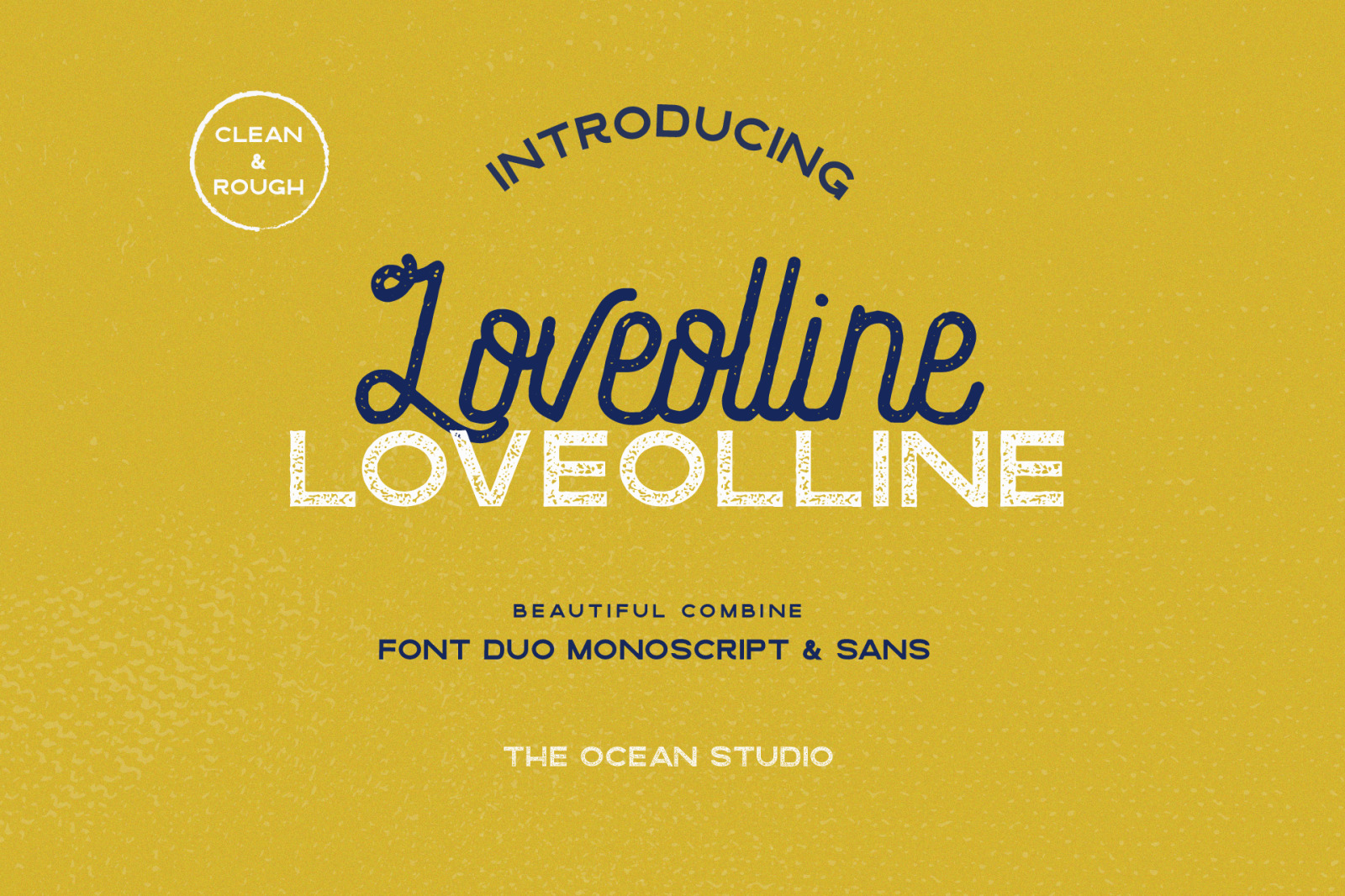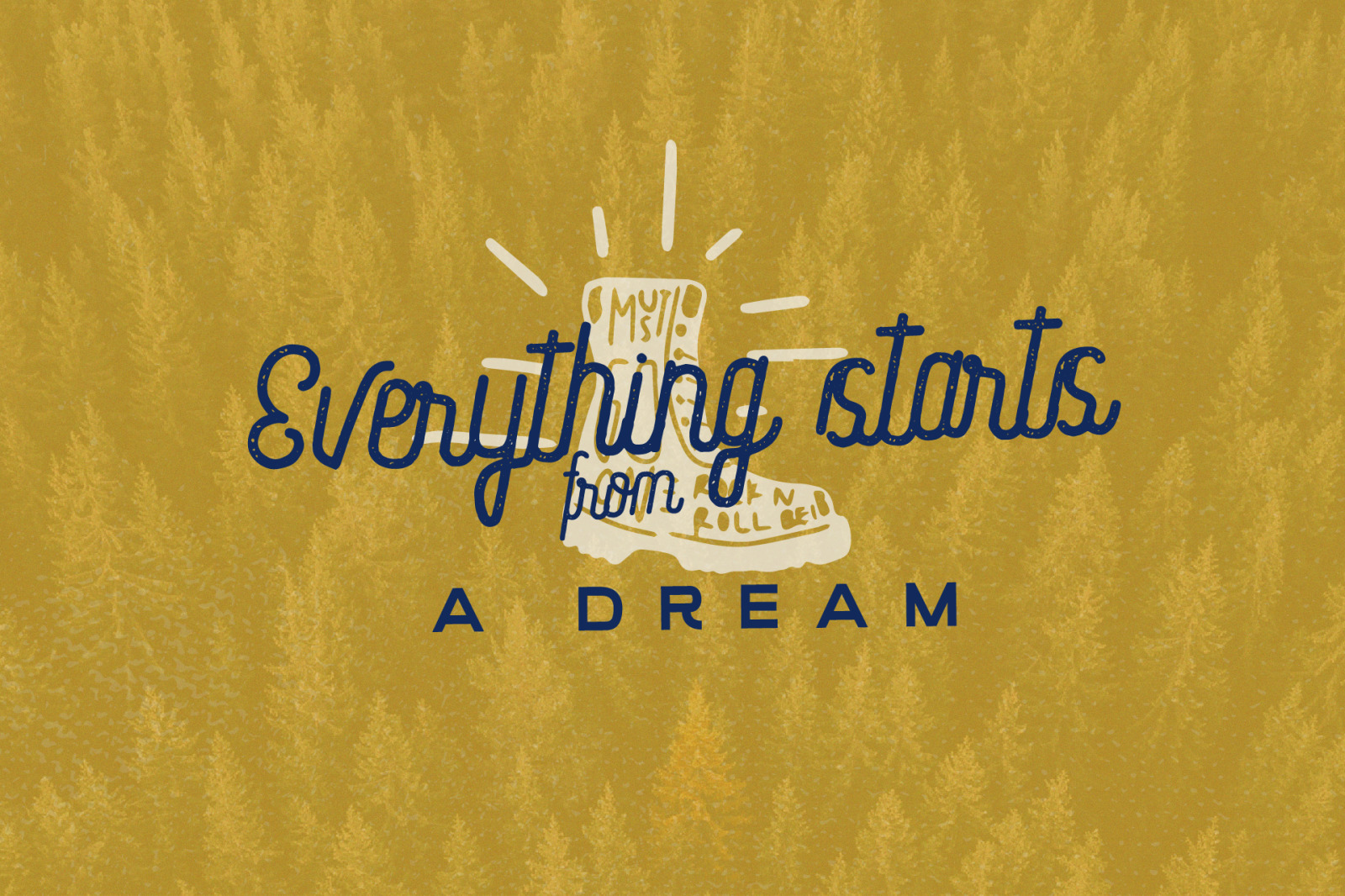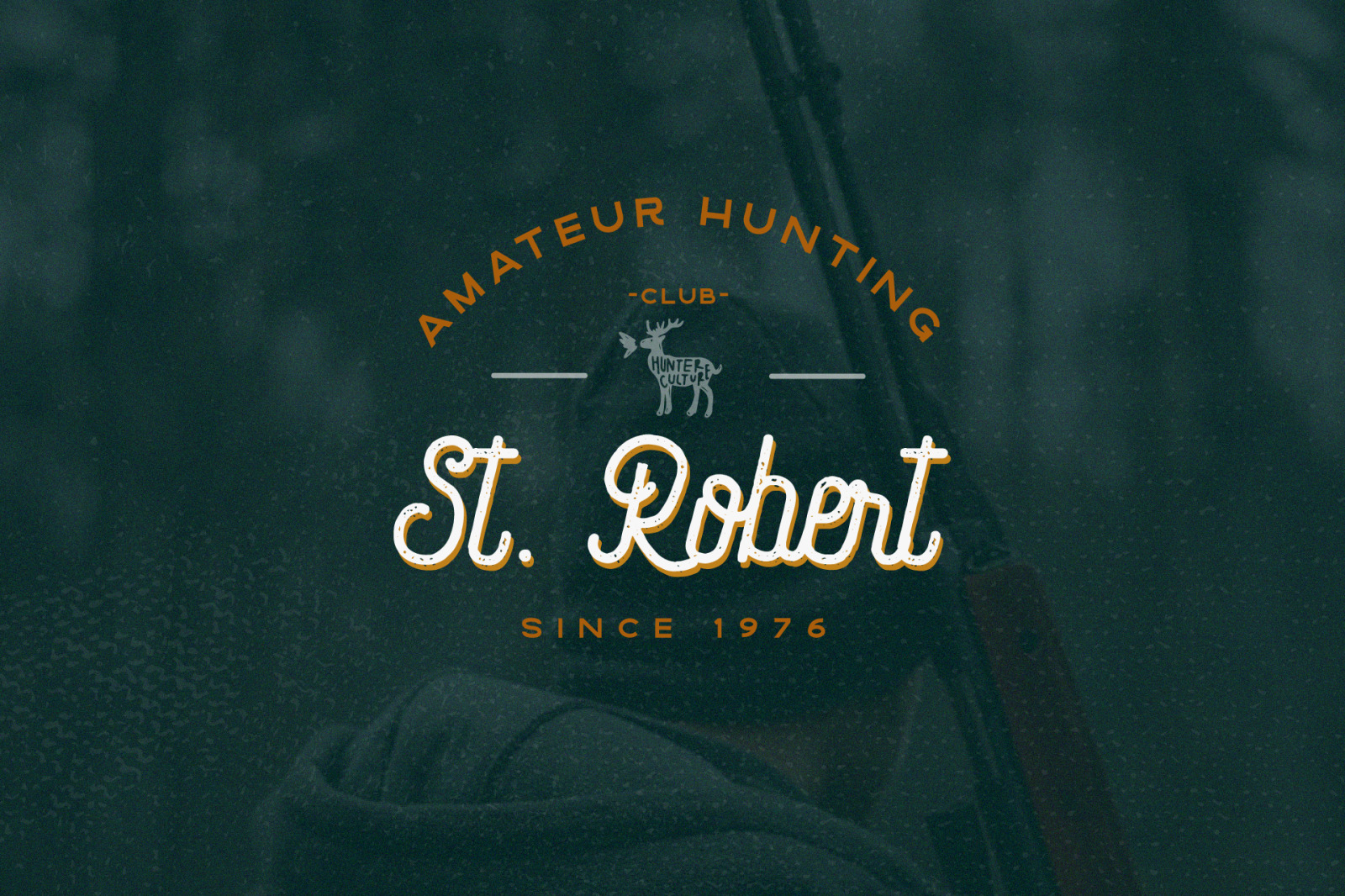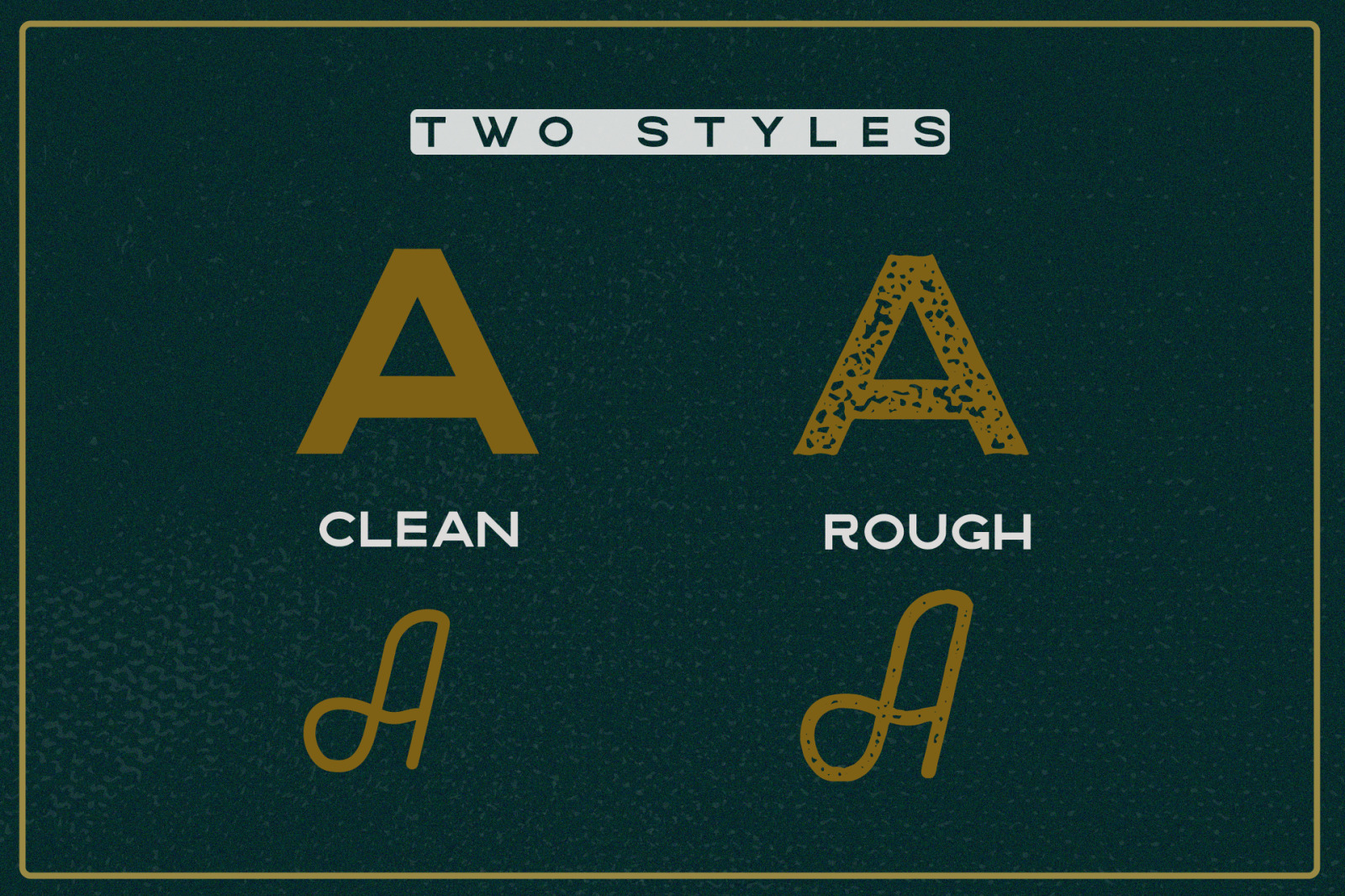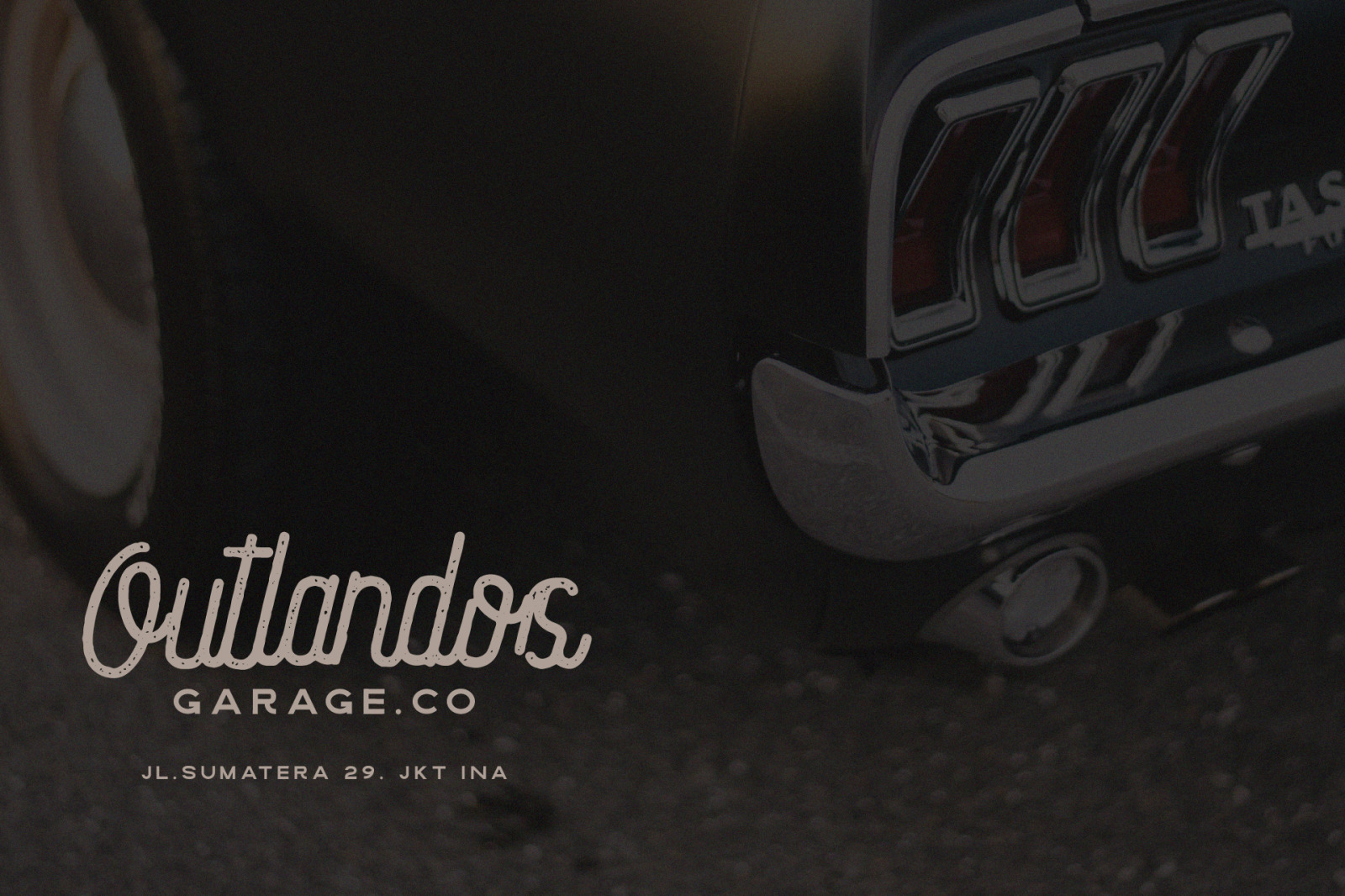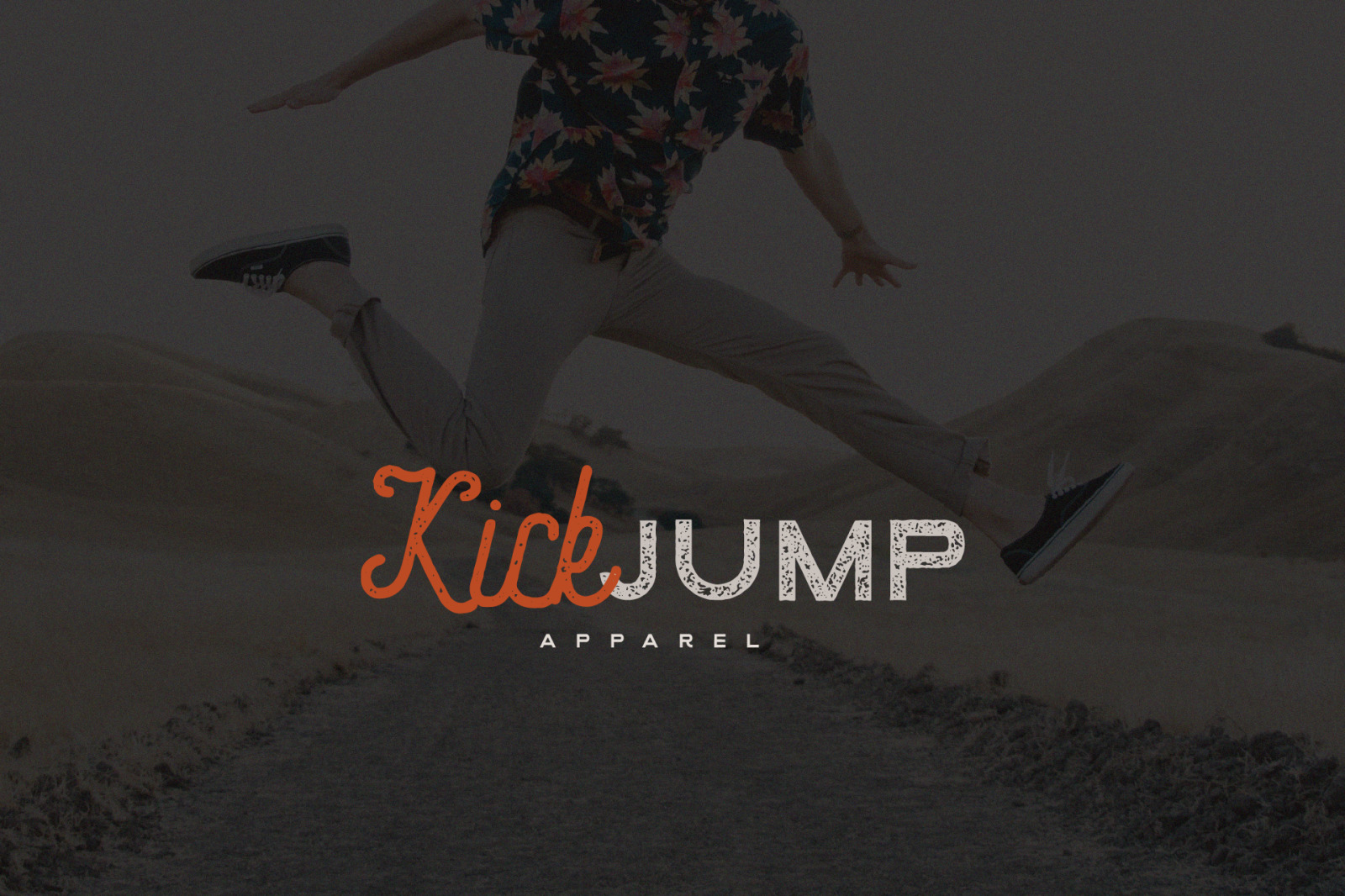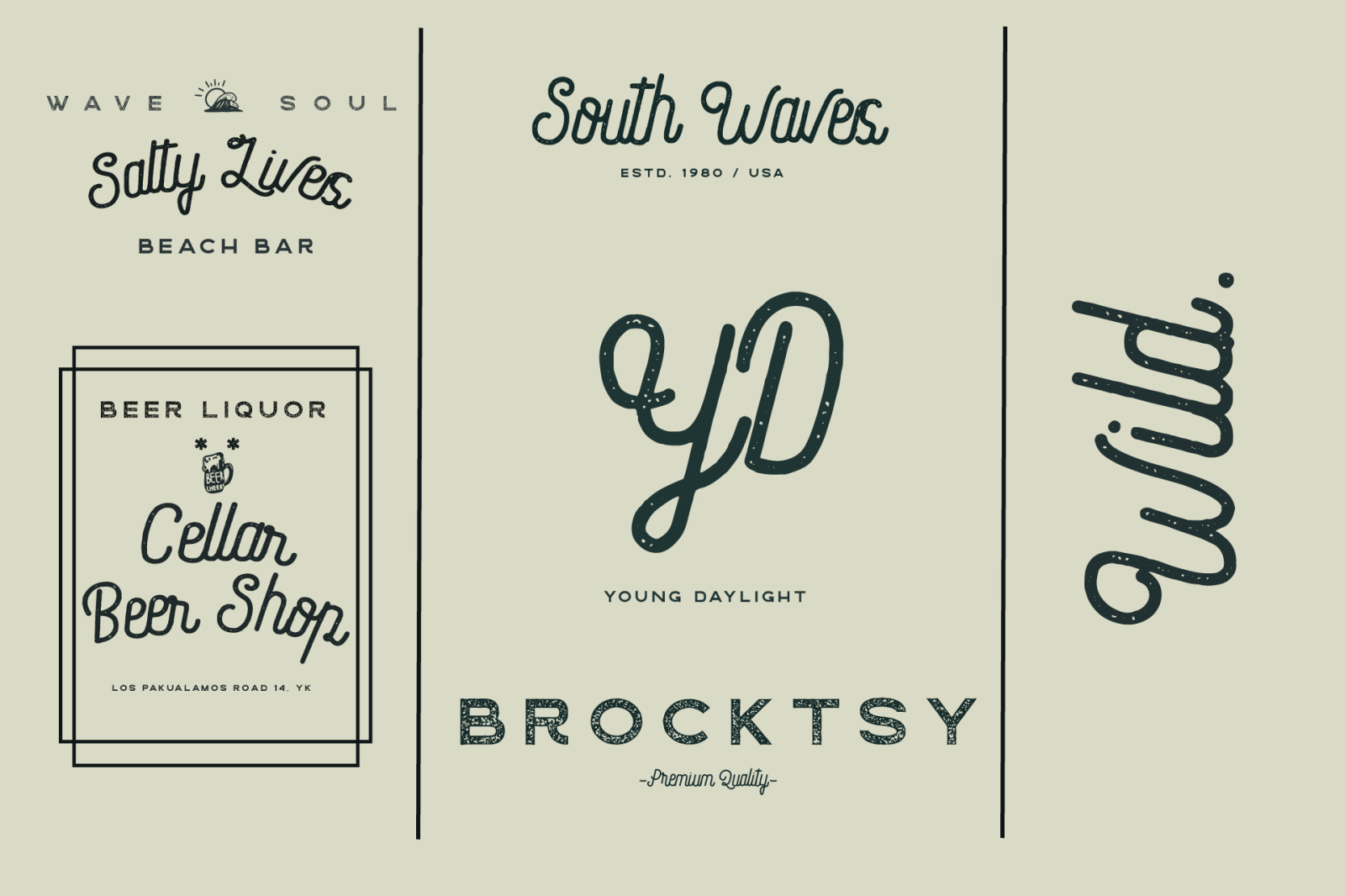
Loveolline Font Duo
LOVEOLLINE Font Duo is vintage script monoline and sans inspired by western culture and combining with vintage touch. These two fonts would be perfect to combine in your design, especially on vintage design. This fonts are great for logotype, badges, clothing, poster, and much more.